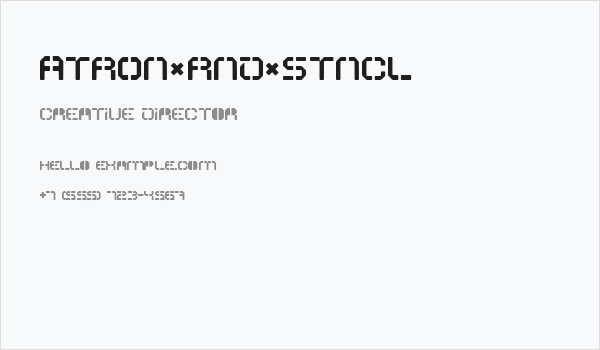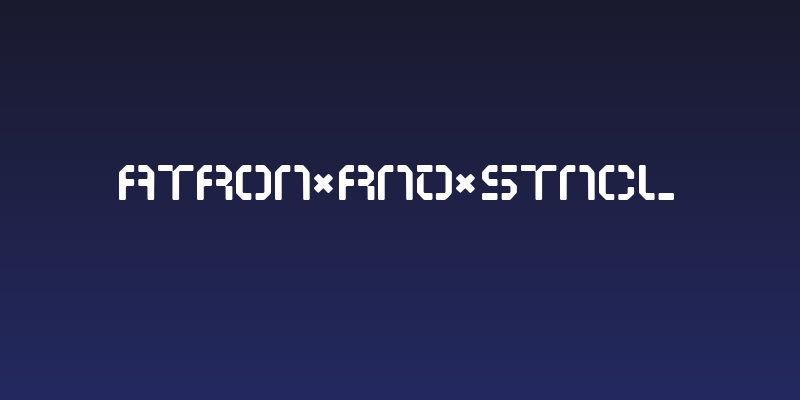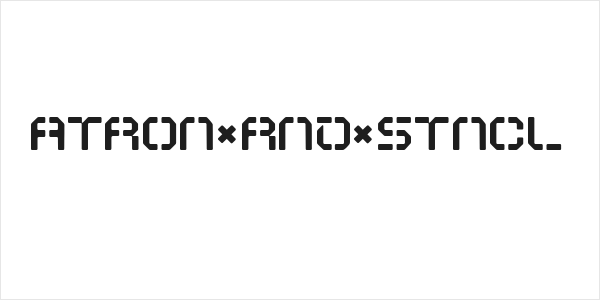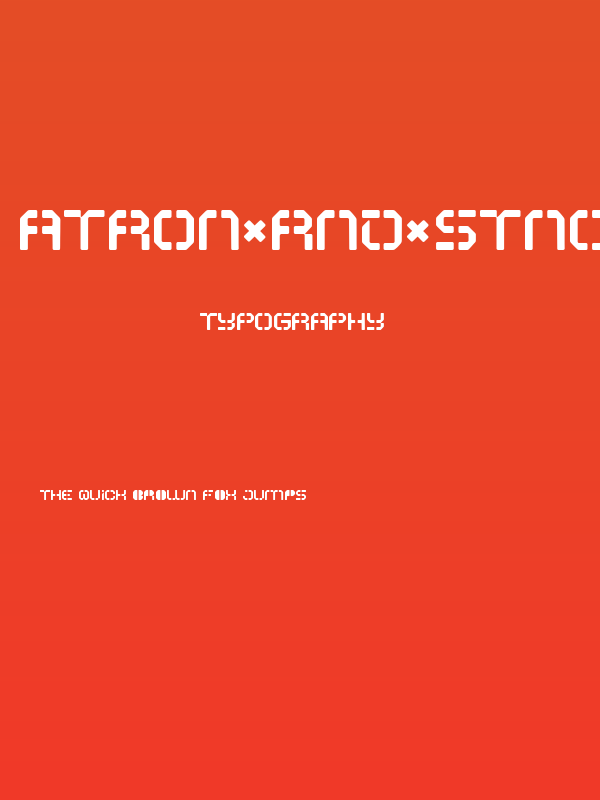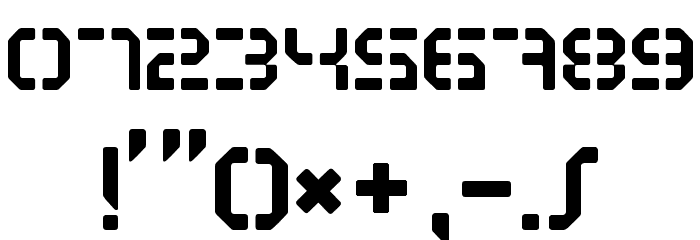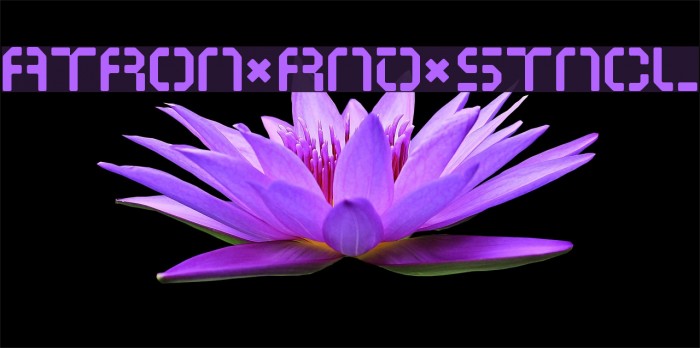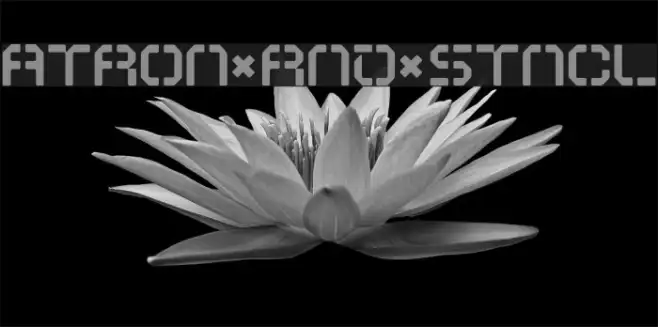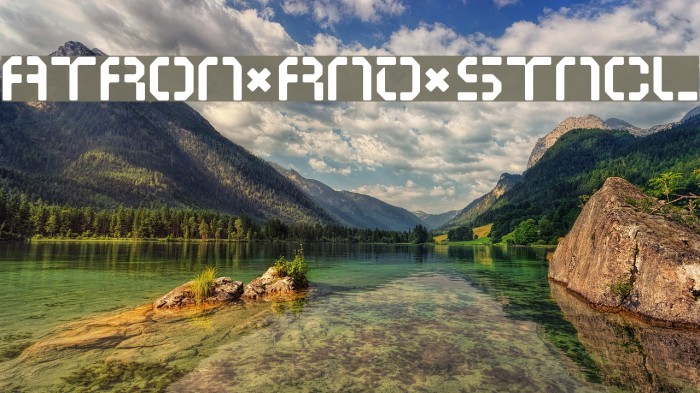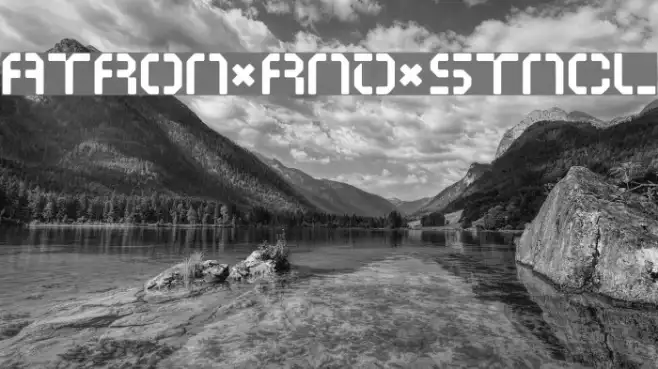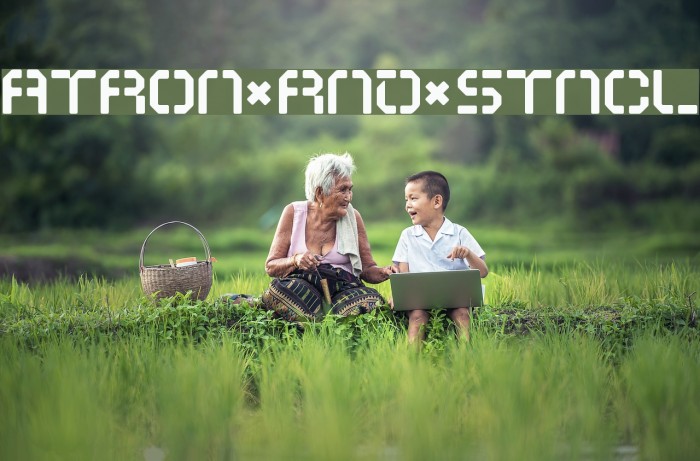
ATRON*RND*STNCL Font
ATRON*RND*STNCL Description
This font features a bold, geometric stencil design with rounded edges, creating a modern and industrial look. The characters are constructed with consistent thickness, giving it a uniform appearance. The cut-out sections within each letter add a unique, futuristic touch, making it stand out. The font maintains a balanced structure, ensuring readability while retaining its distinctive style. It is well-suited for projects that require a strong visual impact, such as branding, posters, and signage. The numerals and special characters follow the same design principles, ensuring cohesion across all elements.
| Proposed Projects | Ideal for branding, posters, signage, and any project needing a strong visual impact. |